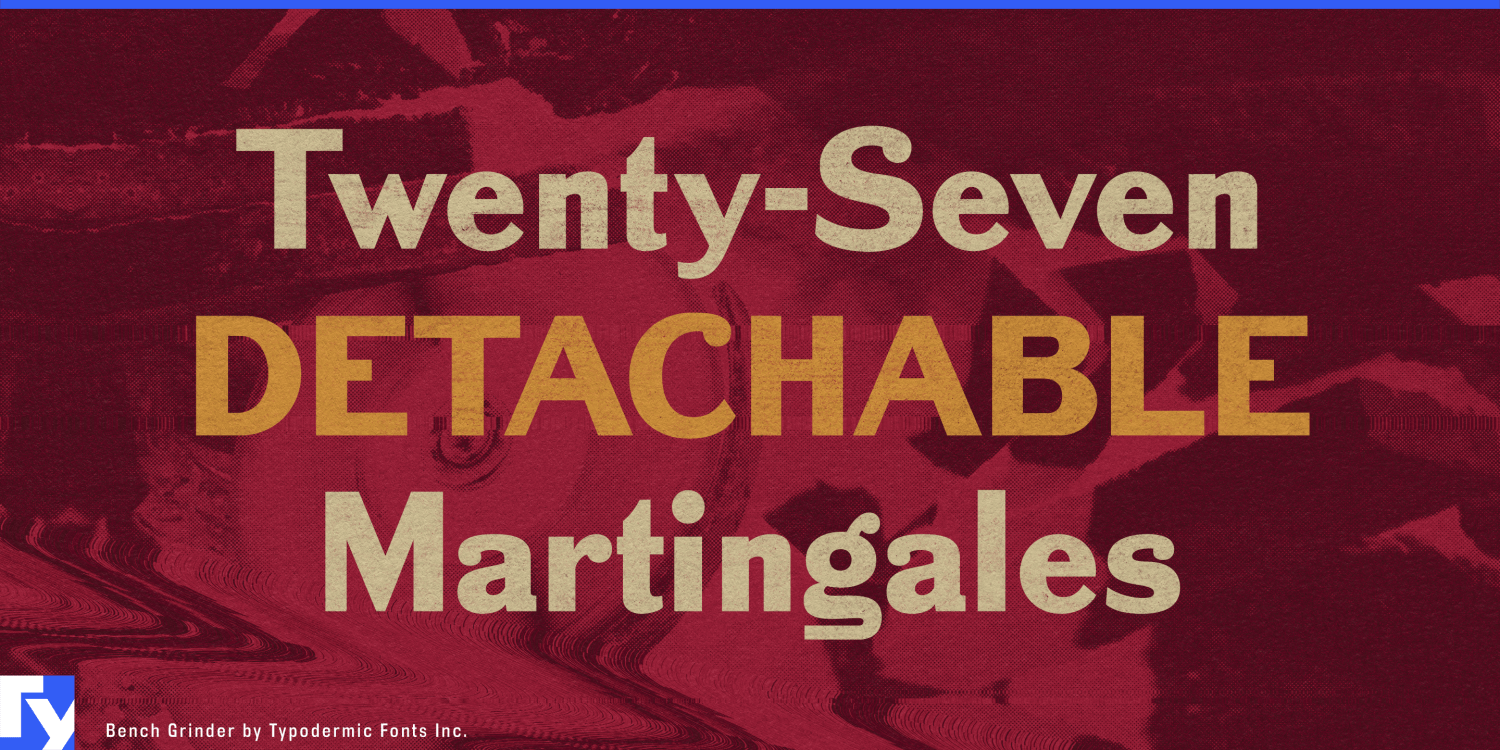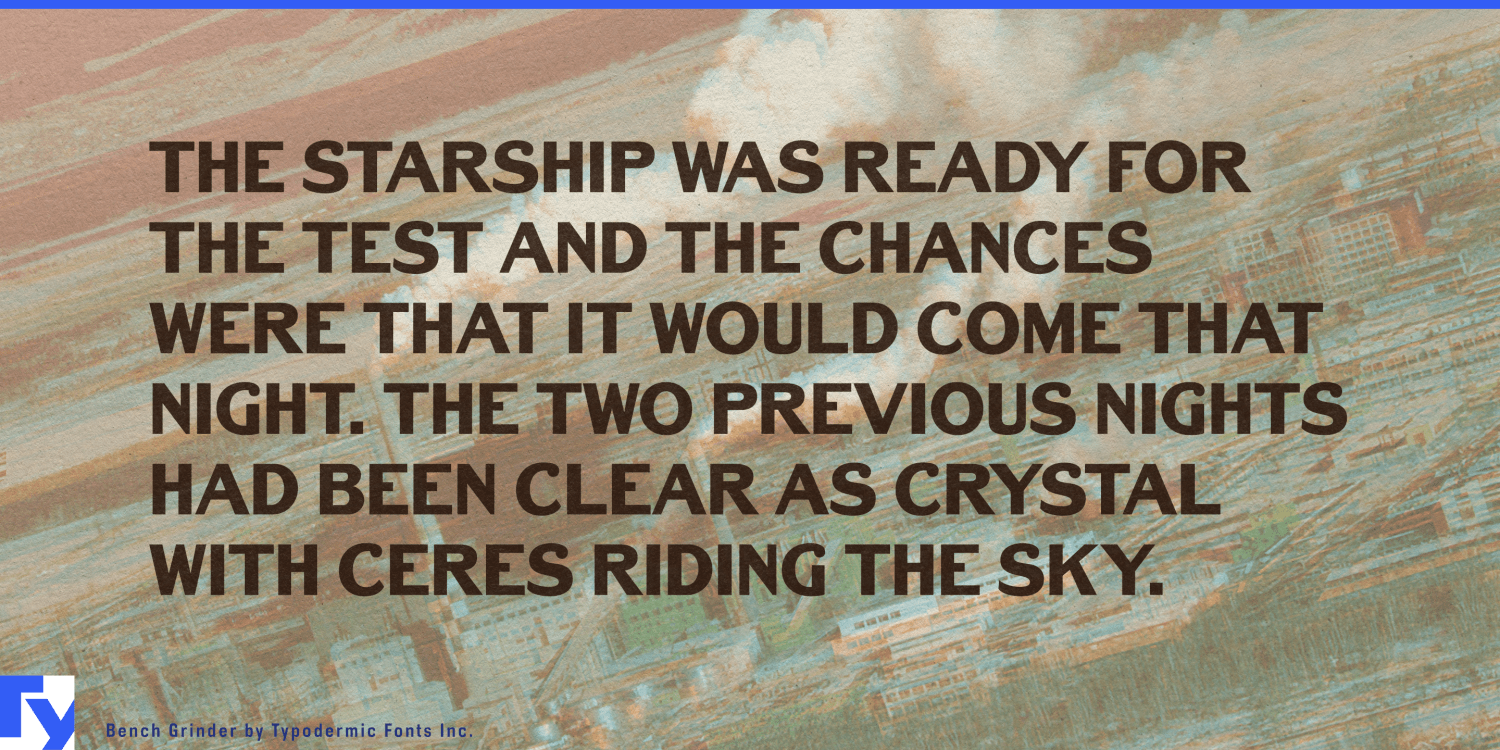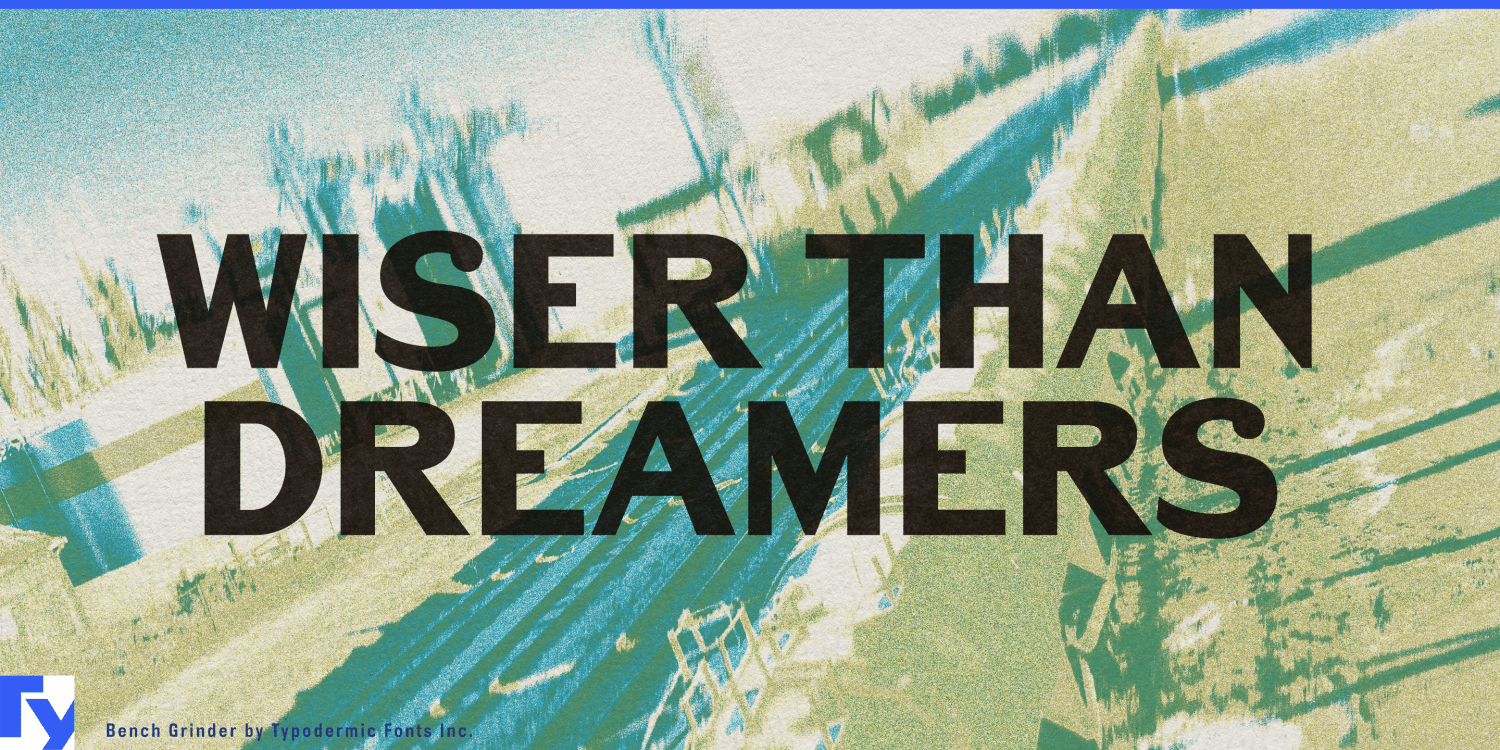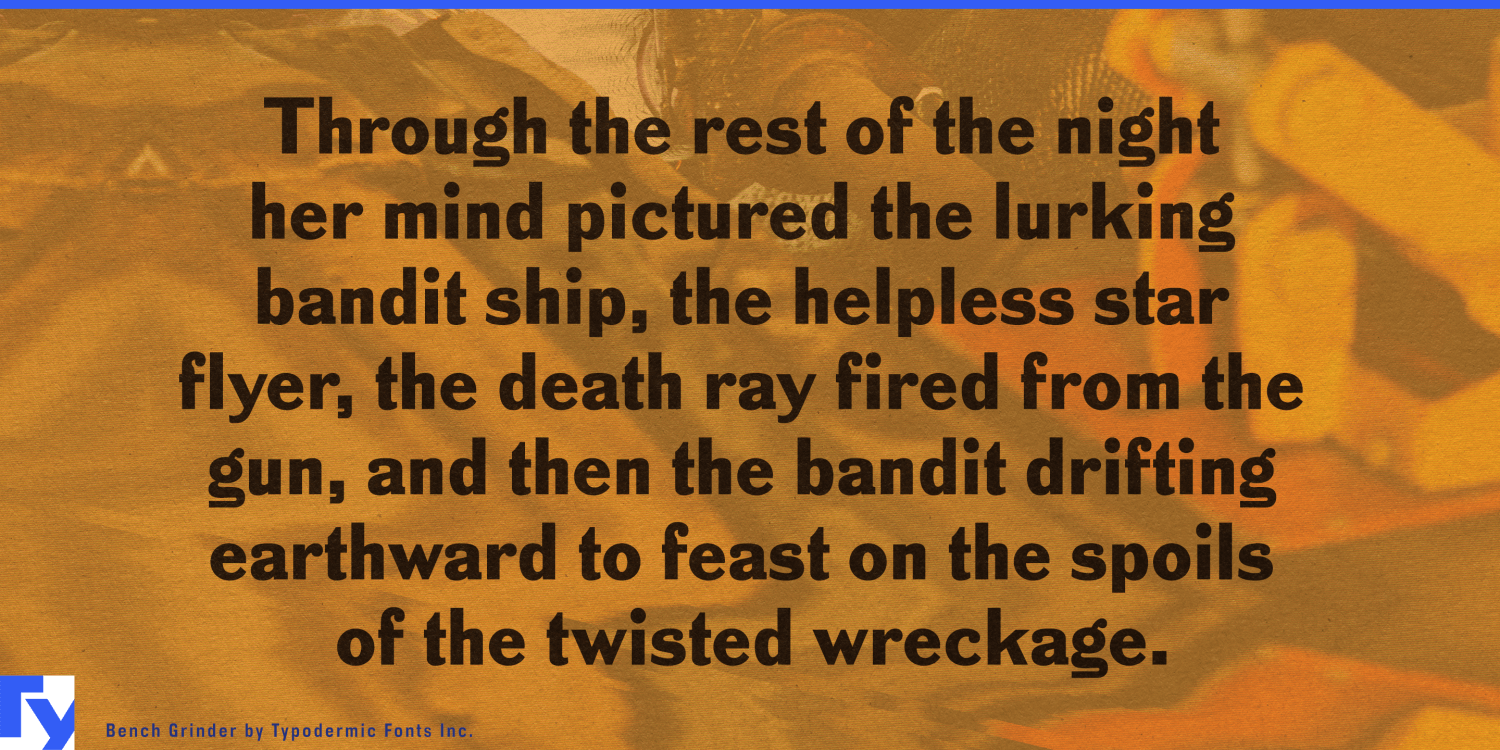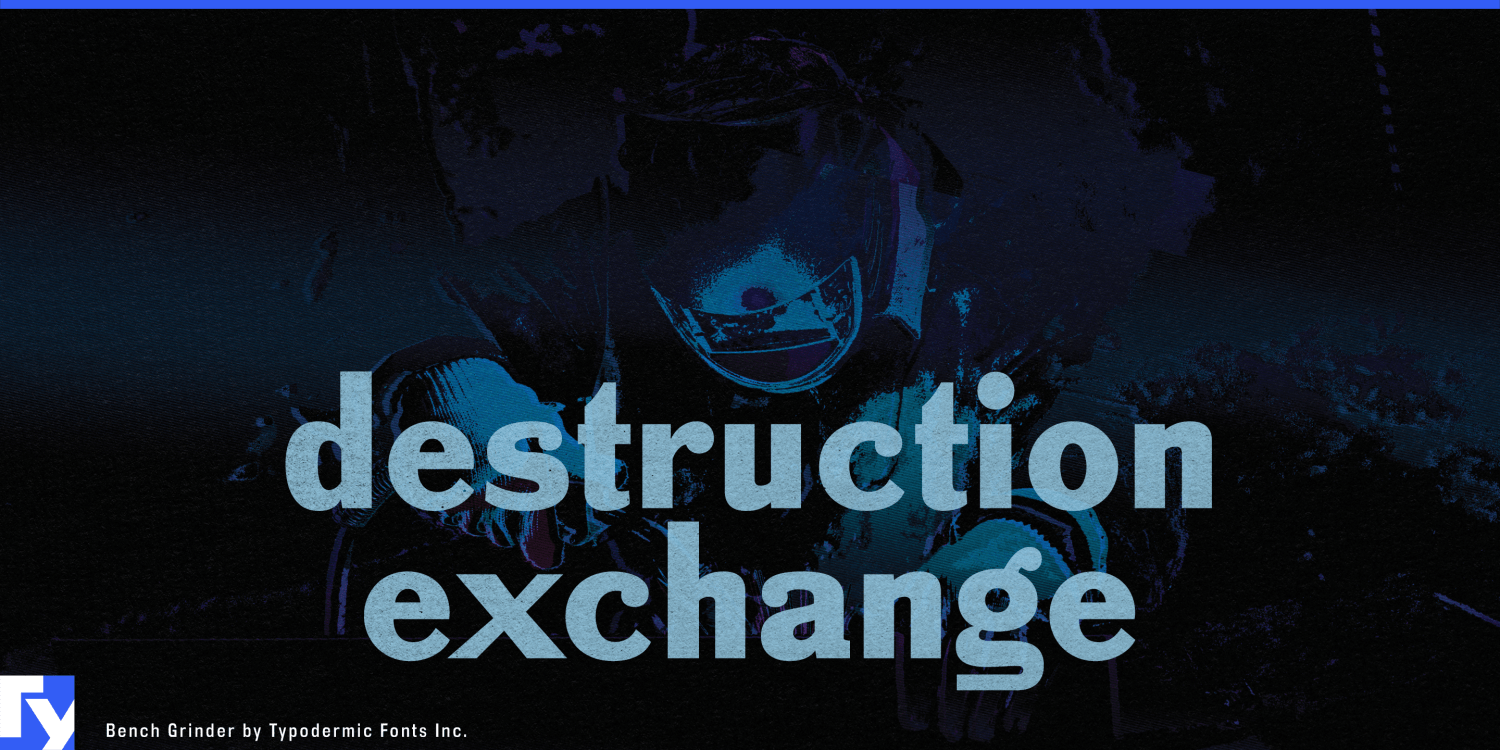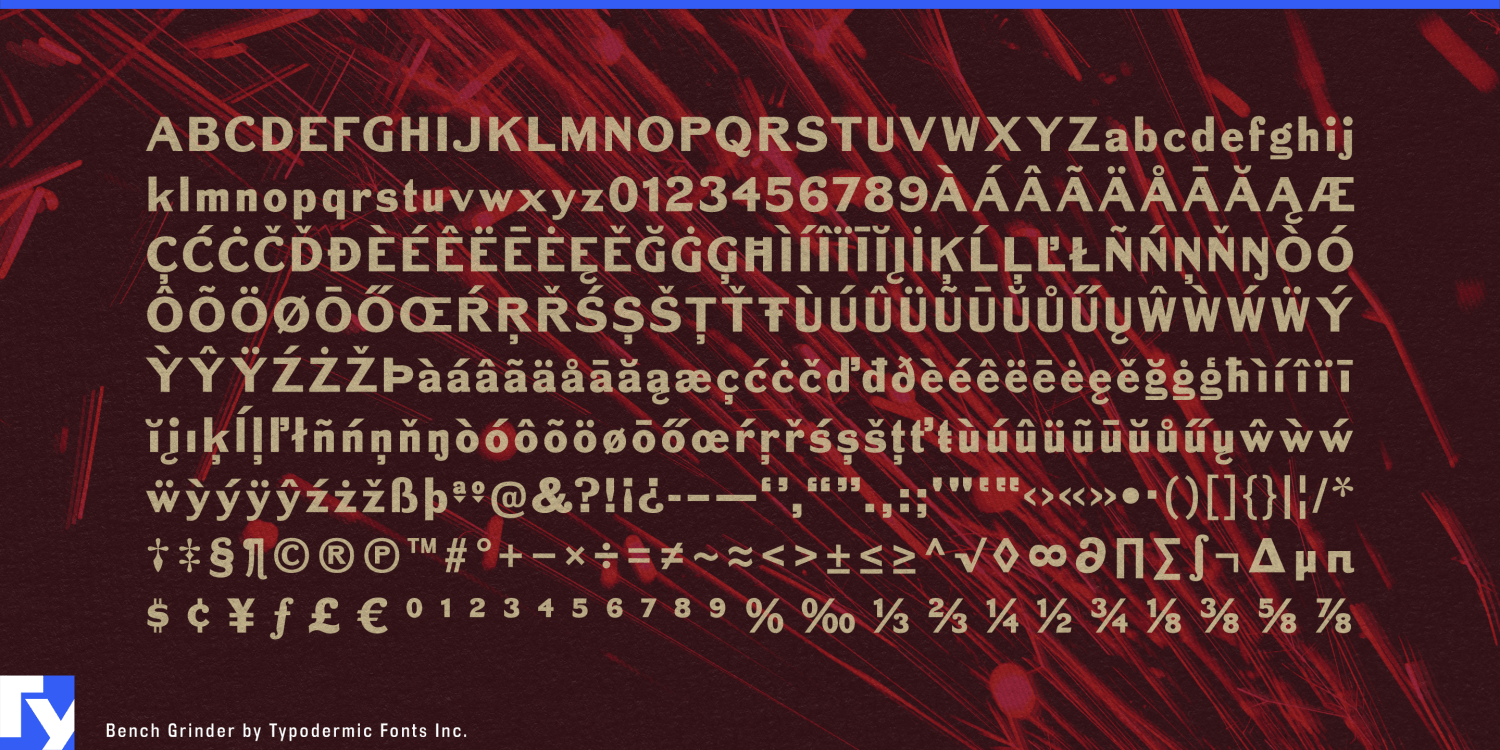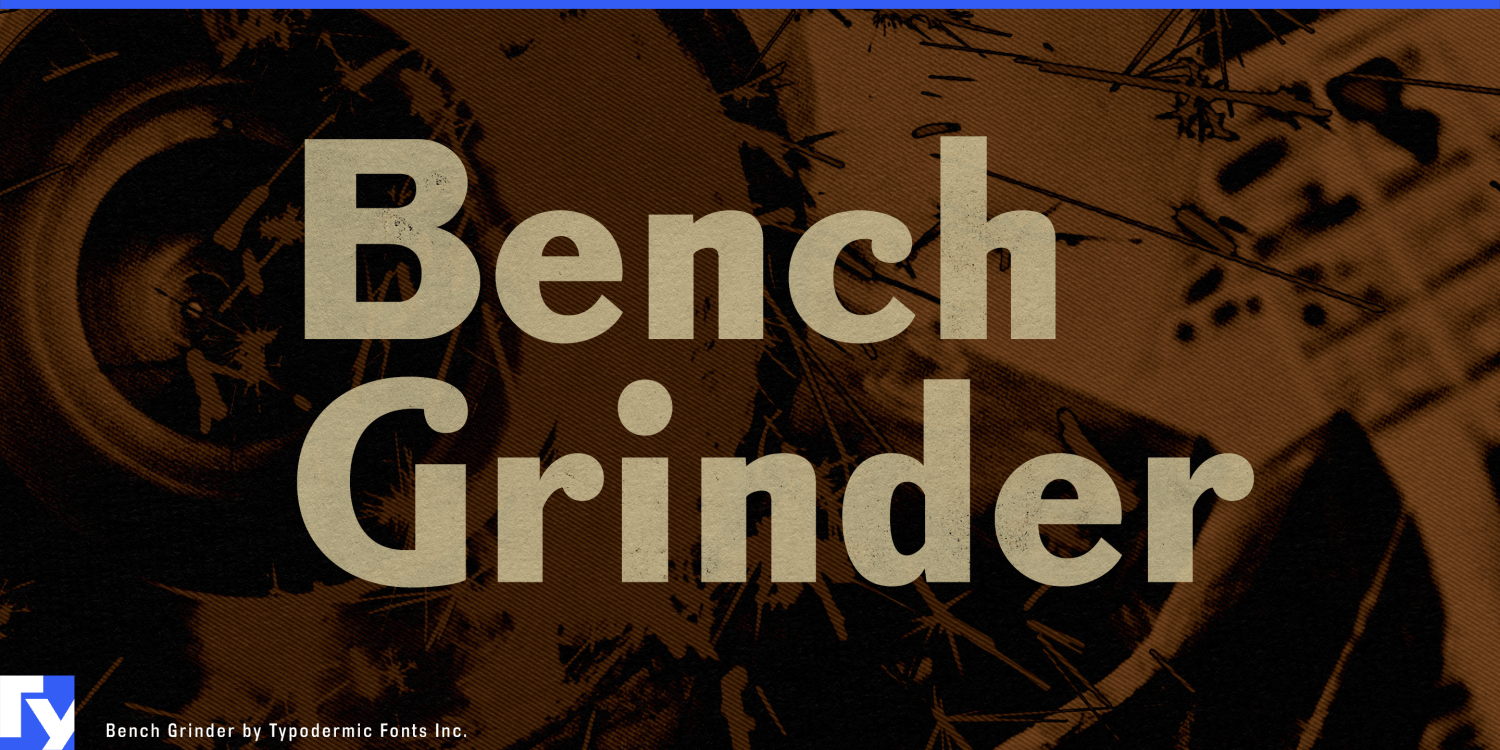
Bench Grinder
About Bench Grinder
Meet Bench Grinder, the typeface that’s about as slick as a muddy tractor tire—and proud of it. Inspired by 19th-century metal headline type that’s had its serifs unceremoniously lopped off, this font wears its rough edges like a badge…